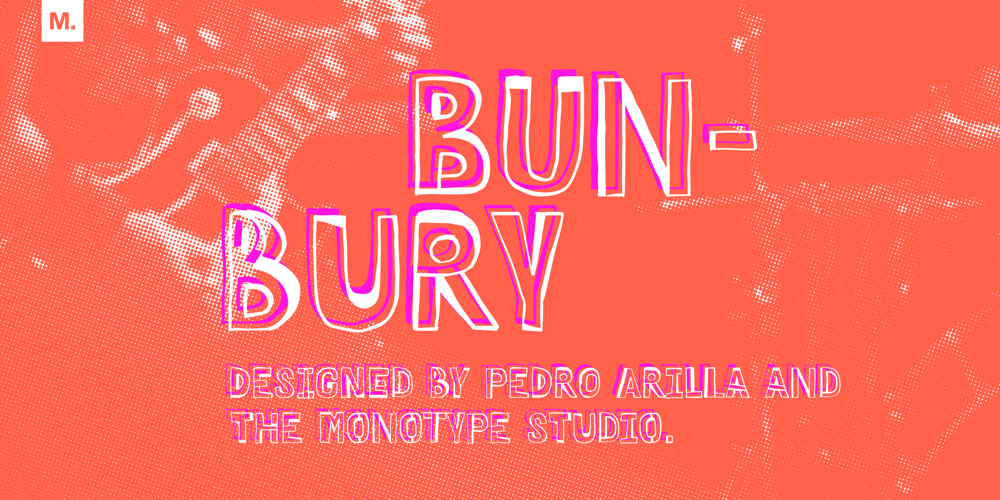
Bunbury Font Family was designed by Pedro Arilla and published by Monotype. Bunbury contains 1 styles and family package options. For playfulness and something a little less ordinary, Bunbury is a wonderful script that’s packed with personality. Created using a felt marker and available as an all capitals display font, SC Bunbury’s style is sort of awkward and a lot of fun, with defined outlines and uneven line thicknesses that make for letters packed with hand drawn quirks.